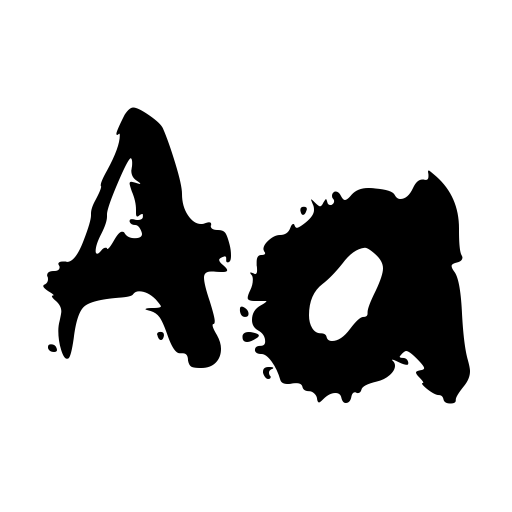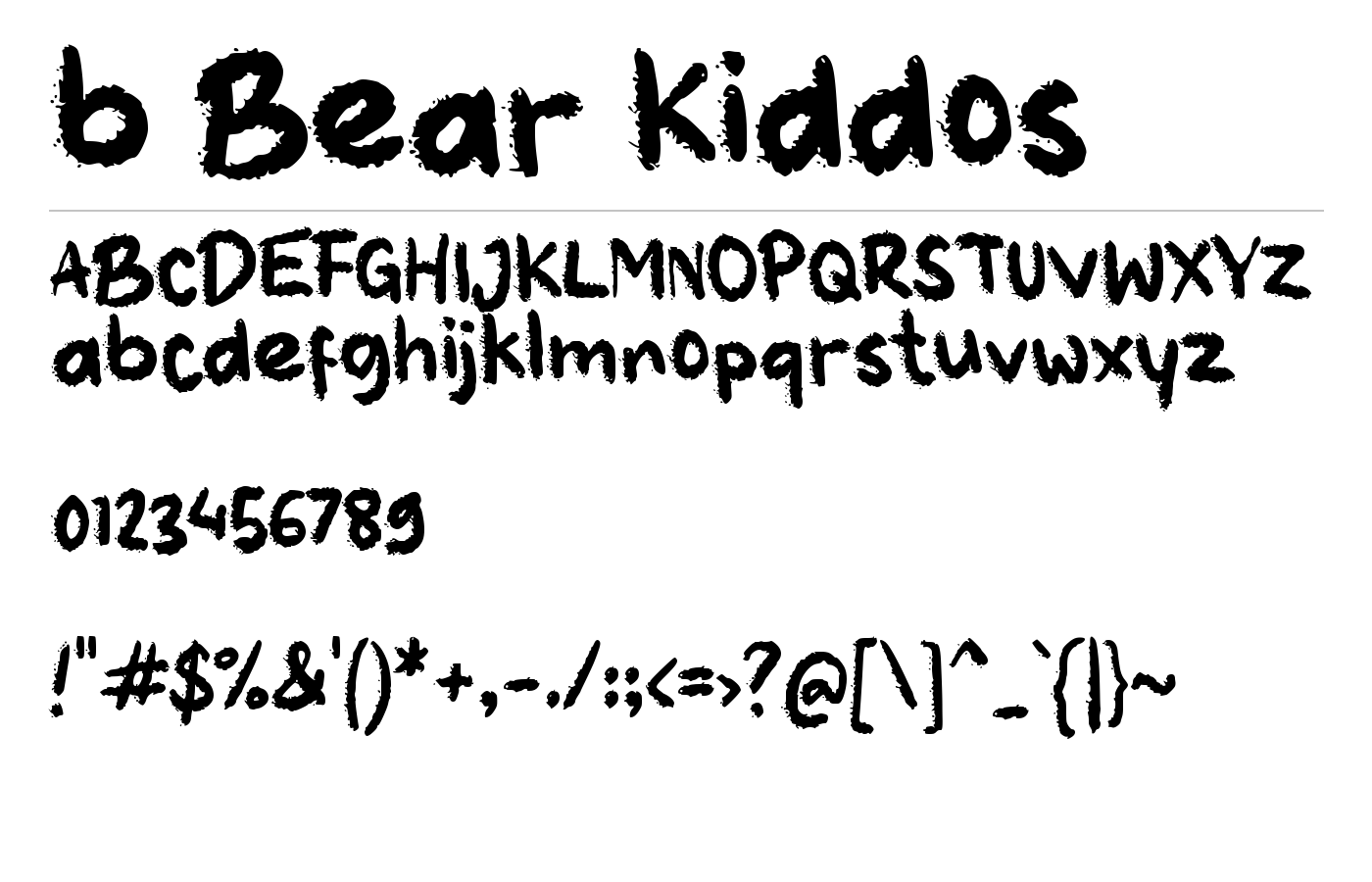
Bear Kiddos is a playful, hand-drawn sans serif font with a rough, textured edge that gives it a fun and energetic feel. Its irregular letterforms and bold weight make it perfect for children's themes, casual branding, and creative projects that want to convey a friendly, informal vibe. This font works especially well in headlines, logos, and packaging where a lively and approachable look is desired.
b Bear Kiddos Font
About b Bear Kiddos Font